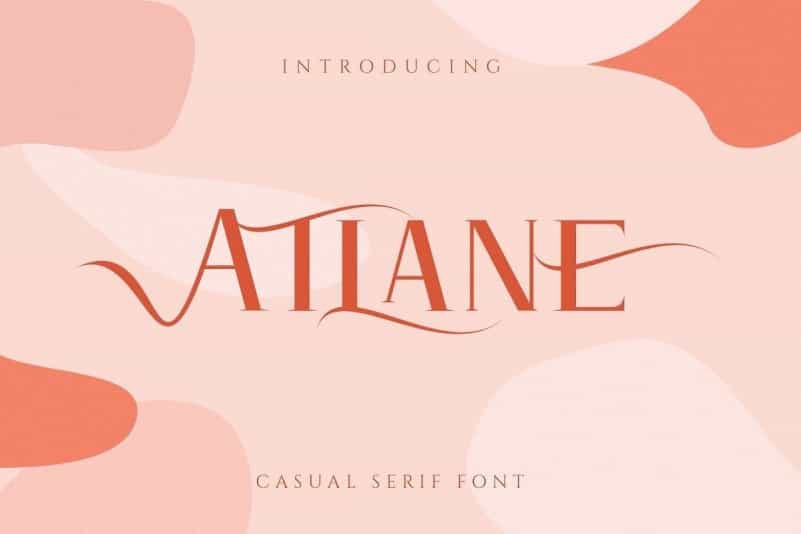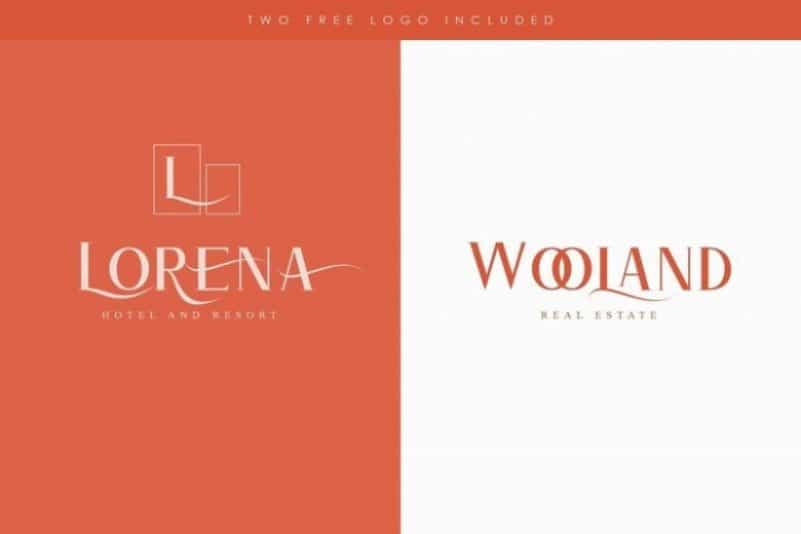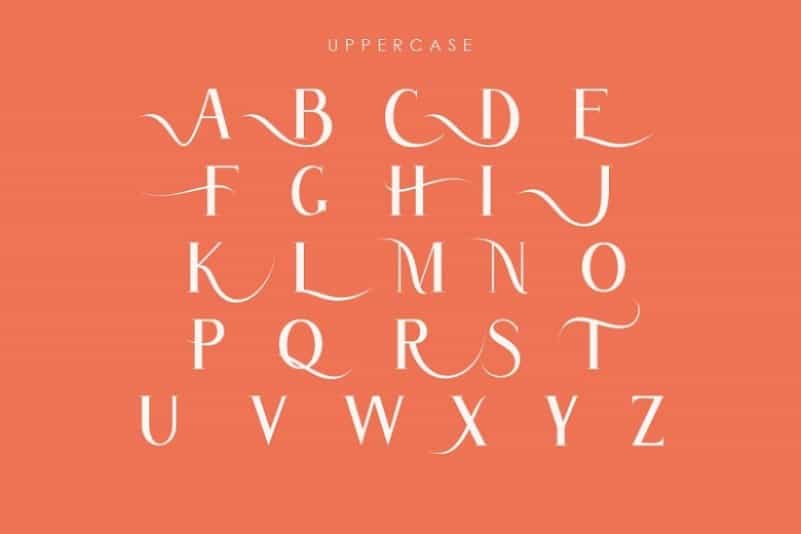
Atlane is a new casual serif font with a modern concept, beautiful swash and ligature that will look good in your designs like personal branding or logos. It is advisable to use a program that has OpenType features and Glyphs panels, for instance, Adobe Illustrator, Adobe Photoshop CC, Adobe InDesign, or CorelDraw in order to view all the available Glyphs.